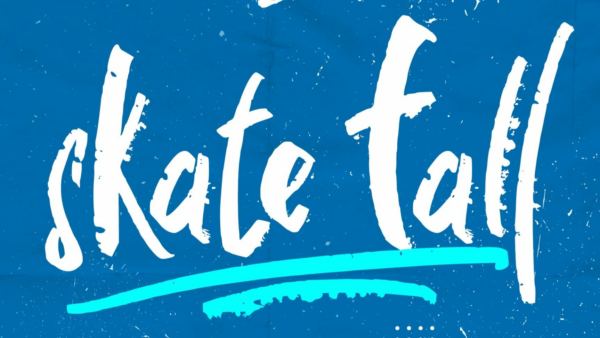
Skate Fall Font
Skate Fall – Strong Brush Fun is a casual, fun handwritten font, created by using a brush pen.
Clean and a little bit quirky, this font is the perfect fit for all of your logos, branding, social media, and crafty DIY projects.